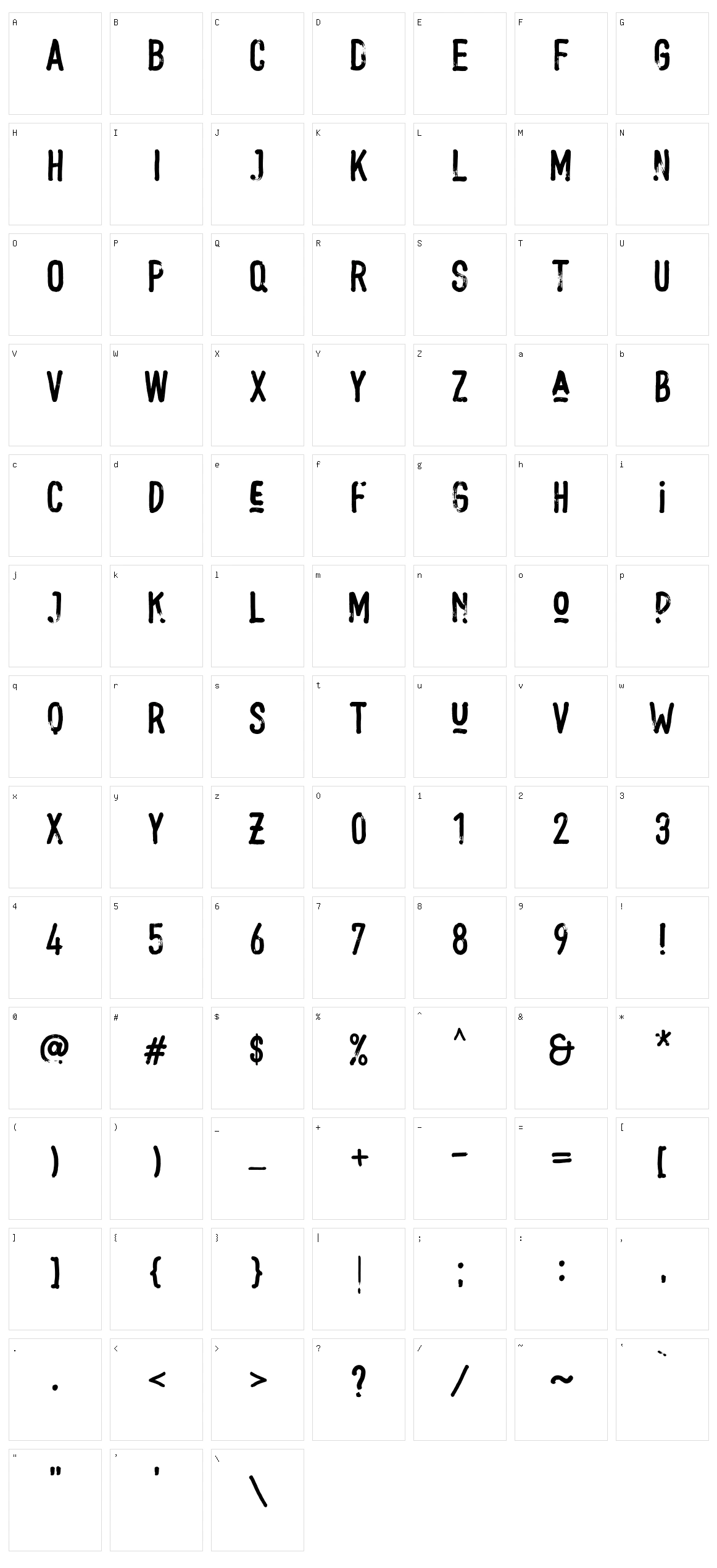
The free font Blowsters is carefully designed by Letterhend Studio, showcasing a thoughtful balance of creativity and usability and falls under the Eroded font style. When you download the ZIP file, it contains only 863.71 KB of font files, making it lightweight and quick to download. Please review the license details below to understand permitted usage and distribution rights. If license information is not available, we recommend using this font for personal projects only or contacting the author directly for commercial usage permissions.